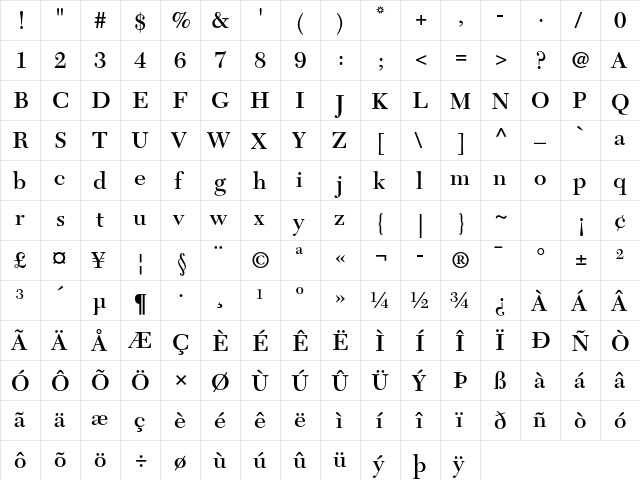
New Caledonia LT Std Semibold Font Preview
New Caledonia LT Std Semibold
| Designer | William A. Dwiggins |
Design Context for New Caledonia LT Std Typeface
New Caledonia LT Std takes a measured approach to typography — its balanced proportions and neutral character make it a reliable workhorse for both digital and print work. Its bold stroke weight gives it real presence on the page.